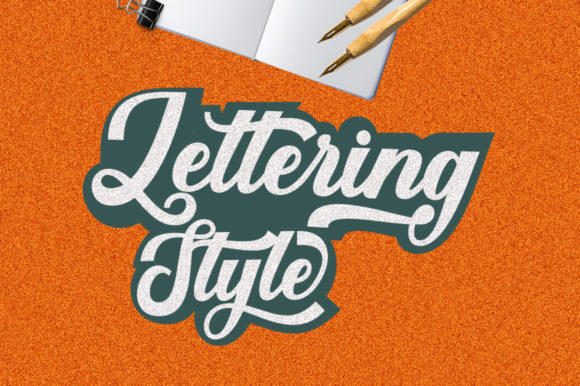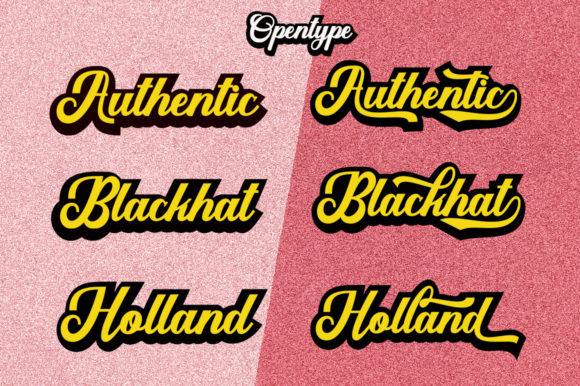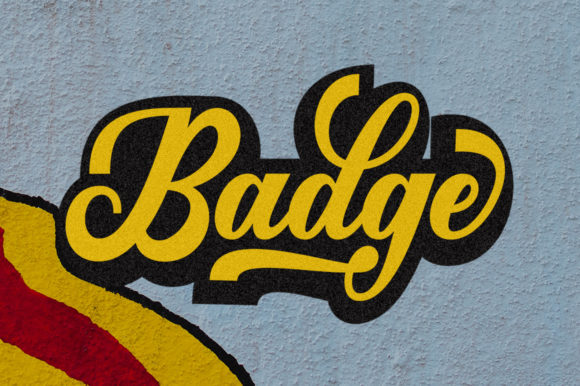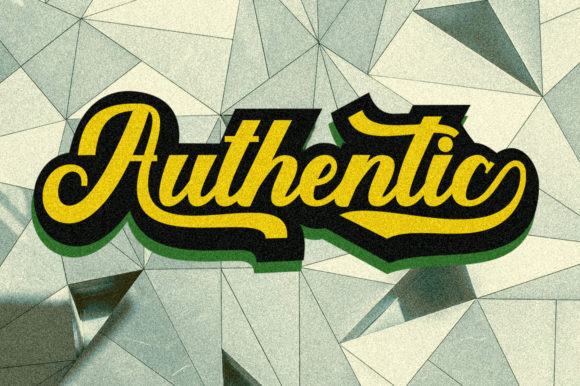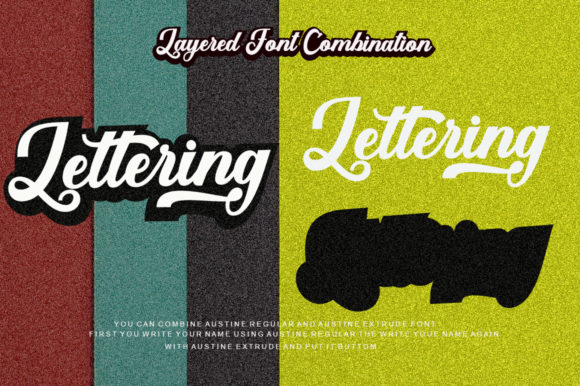
Austine Font: A Bold and Funky Retro Handwritten Font
Are you tired of using the same old fonts in your designs? Do you want to add a touch of personality and whimsy to your projects? Look no further than Austine, a retro handwritten font with a bold feel that’s sure to make your designs stand out. In this article, we’ll take a closer look at Austine and explore its features, benefits, and uses.
What is Austine Font?
Austine is a unique and eye-catching font that’s perfect for designers and crafters who want to add a touch of nostalgia and playfulness to their work. This retro handwritten font features bold, chunky letters with a funky vibe that’s reminiscent of the 70s and 80s. With its one-of-a-kind design, Austine is sure to make your designs pop and leave a lasting impression on your audience.
Features of Austine Font
Austine font has several features that make it a standout choice for designers and crafters. Some of its key features include:
- Bold and chunky letters: Austine’s letters are bold and chunky, making them perfect for headlines, titles, and other design elements that need to make a statement.
- Retro vibe: Austine’s retro vibe is perfect for designers who want to add a touch of nostalgia to their work.
- Handwritten feel: Austine’s handwritten feel gives it a personal and organic touch that’s perfect for designs that need to feel friendly and approachable.
- Unique design: Austine’s unique design makes it a one-of-a-kind font that’s sure to stand out in any design.
Benefits of Using Austine Font
There are several benefits to using Austine font in your designs. Some of the benefits include:
- Adds personality to your designs: Austine’s unique design and bold feel make it perfect for adding personality to your designs.
- Perfect for creative projects: Austine’s funky vibe and retro feel make it perfect for creative projects such as posters, flyers, and brochures.
- Easy to read: Despite its bold and chunky design, Austine is easy to read, making it perfect for use in headlines and titles.
- Versatile: Austine can be used in a variety of design contexts, from digital designs to print materials.
Uses of Austine Font
Austine font can be used in a variety of design contexts, including:
- Posters and flyers: Austine’s bold and chunky design makes it perfect for use in posters and flyers.
- Logos and branding: Austine’s unique design and funky vibe make it perfect for use in logos and branding materials.
- Social media graphics: Austine’s bold and eye-catching design makes it perfect for use in social media graphics.
- Crafting and DIY projects: Austine’s handwritten feel and retro vibe make it perfect for use in crafting and DIY projects.
Tips for Using Austine Font
Here are some tips for using Austine font in your designs:
- Use it sparingly: Austine’s bold and chunky design can be overwhelming if used too much. Use it sparingly to add emphasis to key design elements.
- Pair it with other fonts: Austine can be paired with other fonts to create a unique and eye-catching design.
- Experiment with colors: Austine’s bold design looks great in a variety of colors. Experiment with different colors to find the one that works best for your design.
Austine font is a unique and eye-catching font that’s perfect for designers and crafters who want to add a touch of personality and whimsy to their work. With its bold and chunky design, retro vibe, and handwritten feel, Austine is sure to make your designs stand out. Whether you’re working on a creative project, crafting and DIY project, or simply want to add some personality to your designs, Austine is a great choice.